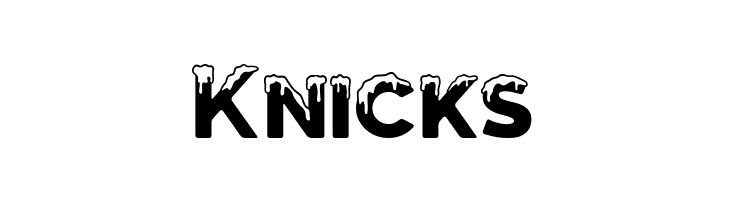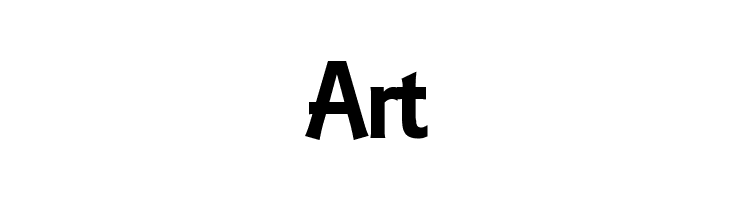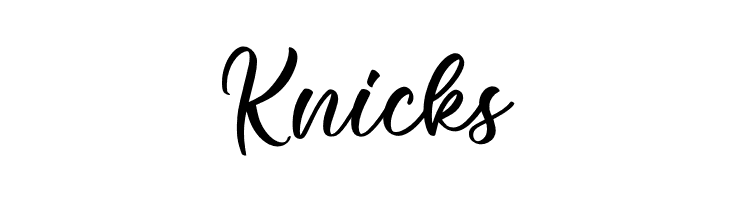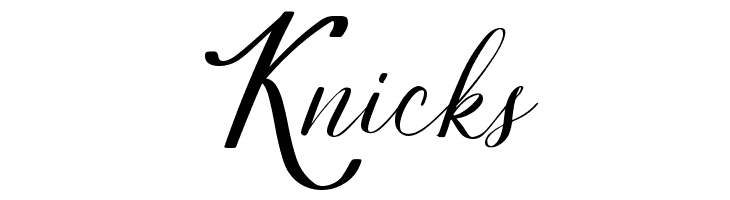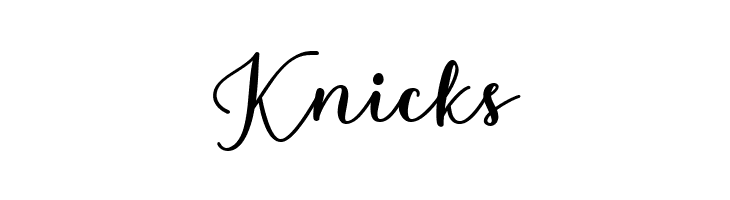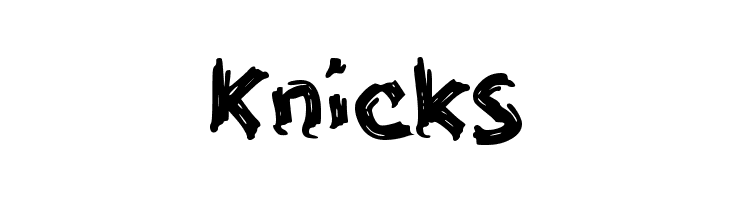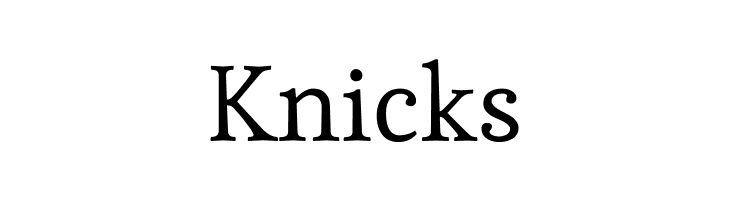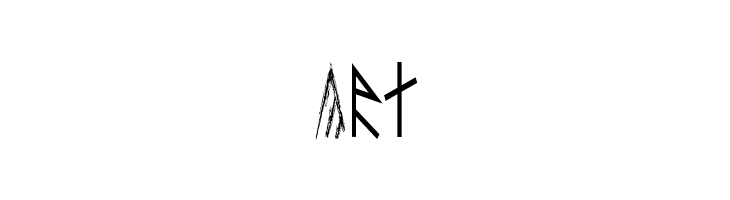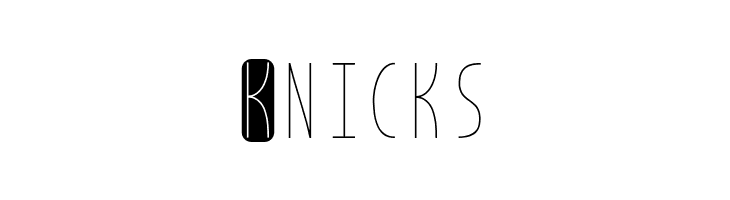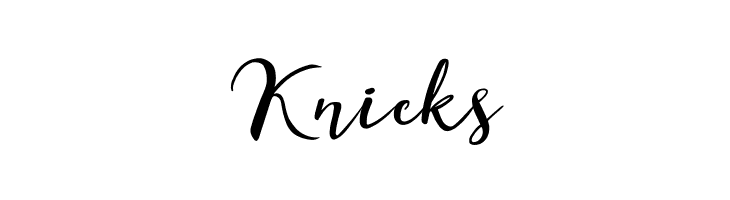
A flowing, elegant script font with medium weight and graceful curves.
A modern sans-serif font with clean, geometric letterforms.
A classic serif font with strong, pronounced serifs and a timeless aesthetic.
A bold, hand-drawn font with thick, textured strokes and dynamic character.
A flowing, cursive script font with elegant, sweeping strokes.
A modern, cursive font with a handwritten style.
An elegant script font with flowing, cursive letters and a refined, sophisticated style.
A modern, geometric font with bold uppercase and sleek lowercase letters.
A modern, decorative font with bold, blocky uppercase and thin, elegant lowercase letters.